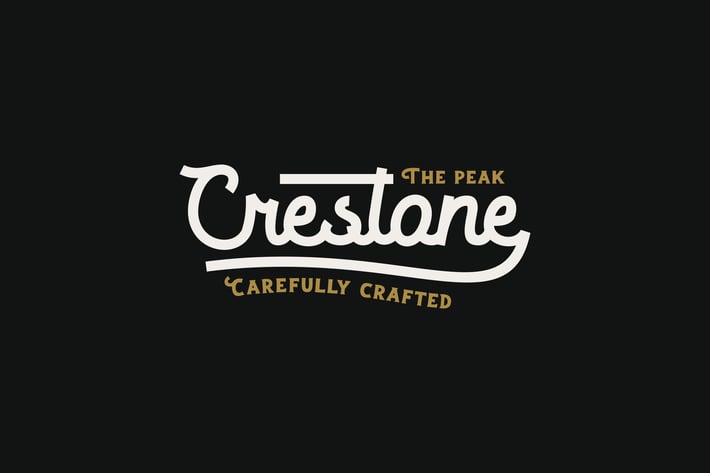
Crestone Font
Crestone is a classic, handcrafted script font designed for branding, vintage logos, apparel, and timeless typography. With its fluid strokes, elegant ligatures, and stylistic alternates, this font embodies heritage, craftsmanship, and authenticity. Whether you're designing retro-style packaging, artisanal branding, or stylish merchandise, Crestone delivers a bold yet refined aesthetic that blends nostalgia with modern usability.
Key Features
Elegant Script with Flowing Ligatures – Ensures smooth, connected letterforms for a natural handwriting feel.
Vintage & Timeless Appeal – Perfect for classic logos, apparel branding, and artisanal designs.
Includes Stylistic Sets & Alternates – Offers customization for unique typography compositions.
Ideal for Retro & Outdoor Aesthetic – Works beautifully in badges, labels, and adventure-themed graphics.
Crestone is perfect for designers, clothing brands, and businesses that want a script font with vintage character. Its smooth ligatures and stylistic alternates make it ideal for handcrafted logos, rustic coffee shops, custom t-shirts, and premium product packaging. Whether used for barber shops, whiskey labels, or heritage-inspired branding, Crestone brings authentic charm and a professional touch.